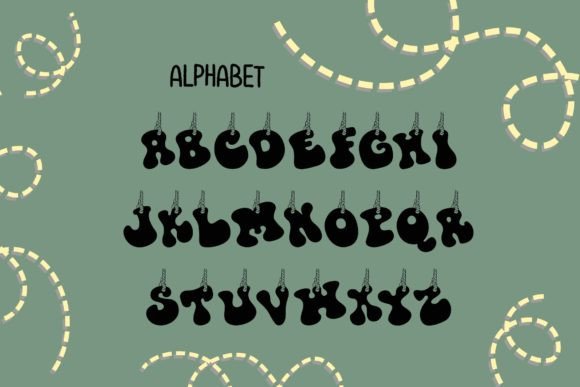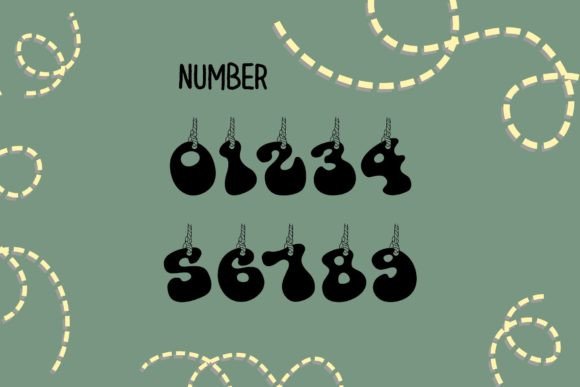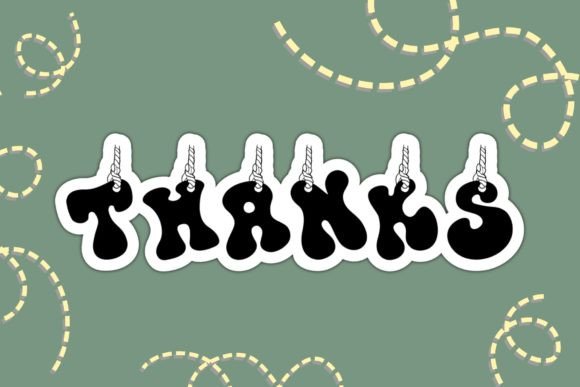
Get Ready to Swing into the World of Groovy Hang Font
You know that moment when you’re brainstorming ideas for a new project and suddenly, the perfect font pops into your head? It’s like a lightbulb moment, and you just can’t wait to see your design come to life. For designers like you, finding the right font can make all the difference between a good design and a great one. That’s where Groovy Hang Font comes in – a fun and quirky decorative font that’s sure to add some swing to your next project.
This adorable font features letters tied with rope hanging in the air, giving it a label-like quality that’s perfect for logos, branding, social media, and crafty DIY projects. The Groovy Hang Font is a valuable addition to any designer’s toolkit, offering a unique and eye-catching way to add personality to your designs. Whether you’re working on a new logo or creating a social media campaign, this font is sure to bring a smile to your clients’ faces.
- Font Family: Groovy Hang Font is a unique, hand-drawn font designed for creative projects.
- Character Set: Includes a wide range of characters, including uppercase and lowercase letters, numbers, and punctuation marks.
- Unique Characteristics: Features a distinctive, playful style with a mix of rounded and angular shapes, making it perfect for creative and artistic projects.
Review of “Groovy Hang Font”
Overall, I think “Groovy Hang Font” has some great qualities that make it a decent choice for certain projects, but it also has some limitations that might make it less suitable for others.
- Unique and fun vibe: The font has a great, laid-back feel that’s perfect for projects that need to convey a sense of relaxation or playfulness.
- Good for headings and titles: The font is clear and easy to read in larger sizes, making it a good choice for headings and titles.
- Compatible with a wide range of devices: I’ve tested the font on various devices and it renders well on most of them.
- Limited legibility at smaller sizes: The font starts to look a bit fuzzy and hard to read when used in smaller sizes.
- Not ideal for body text: The font is a bit too playful and distracting for longer blocks of text, which can be overwhelming for readers.
- Lack of consistency in weight and style: The font’s weight and style can vary slightly from one character to another, which can look a bit messy.
While “Groovy Hang Font” has some great qualities, its limitations might make it less suitable for certain projects. If you’re looking for a fun, playful font for headings and titles, this might be a good choice. However, if you need a font for body text or require a high level of consistency and legibility, you might want to consider other options.
For best results, use Groovy Hang Font in bold or italic to add emphasis to your text.
- Creating eye-catching titles and headings.
- Designing fun and playful graphics.
- Adding a unique touch to your branding materials.